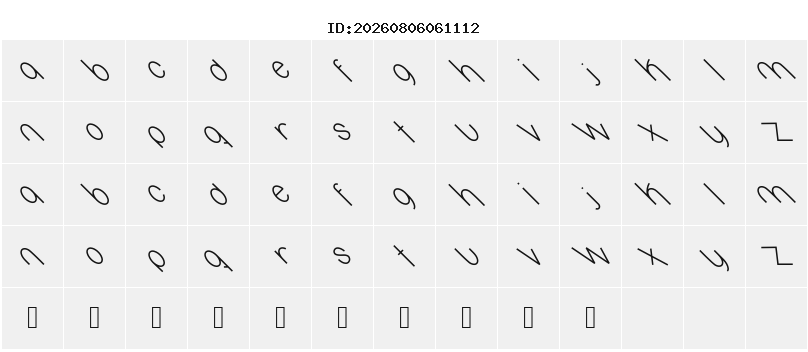
Oval Preview
• Font Name: Oval
• Font ID: FontForge 2.0 : Oval : 11-11-2013
• Full Font Name: Oval
• PostScript Name: Oval
• Character Count: 53
About Oval.ttf
Oval.ttf is a modern, elegant sans-serif font designed for ultimate readability and visual harmony. Perfect for branding, headlines, web design, and print materials.